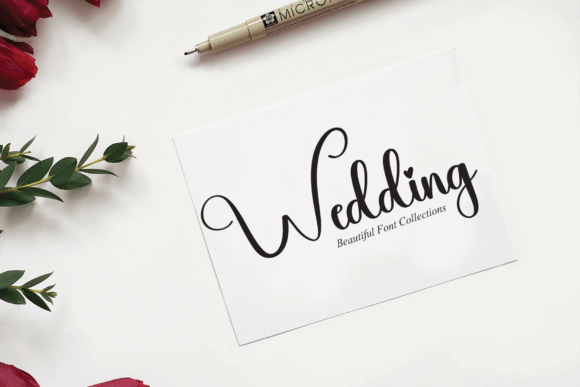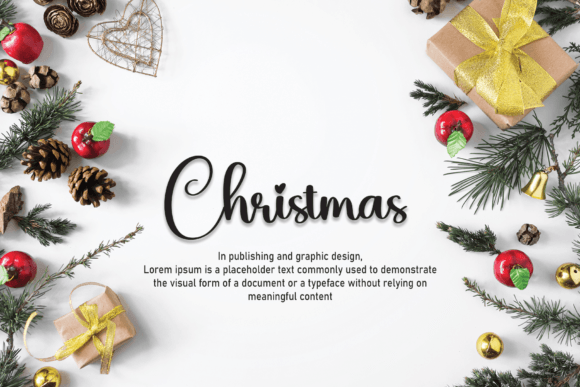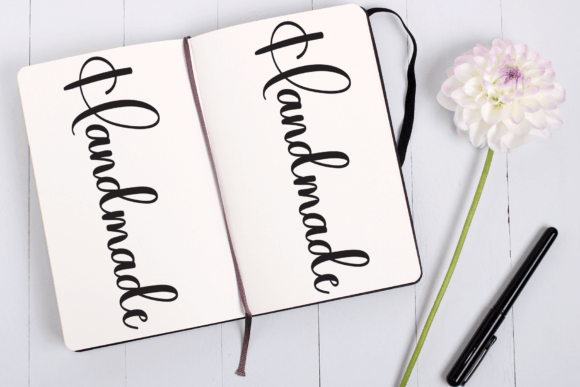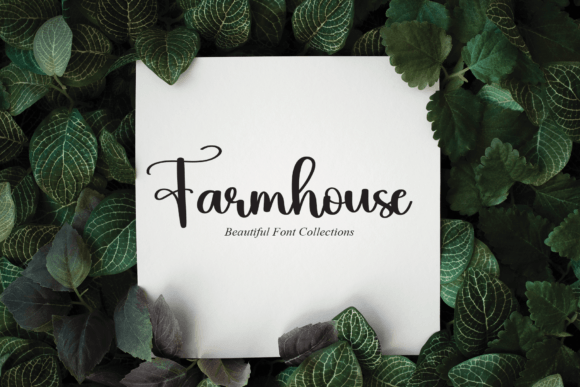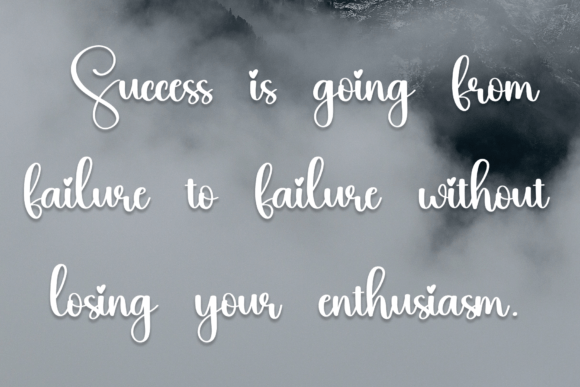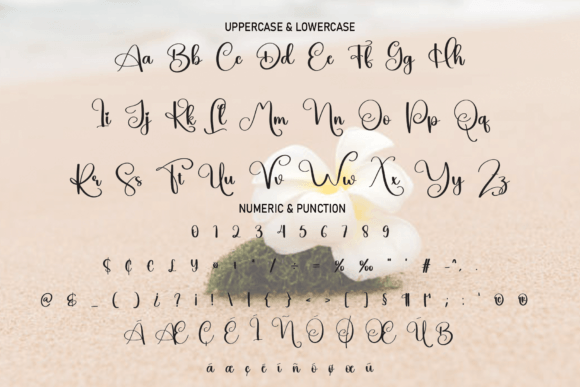
The Perfect Brush Stroke: Discovering the Allure of Hawaii Font
Have you ever been captivated by the free-flowing lines of a handwritten font, and felt an instant urge to recreate that same charm in your design? For many designers, the allure of a beautiful handwritten font is hard to resist, and it’s exactly this kind of creative spark that makes the Hawaii Font so irresistible.
This elegant and stylish font is more than just a pretty face – it’s a versatile tool designed to elevate any project from social media posts to wedding invitations, and from product packaging to photography watermarks. With its unique, handwritten style, the Hawaii Font is a valuable addition to any designer’s toolkit, offering a touch of personality and whimsy to even the most mundane designs.
Hawaii Font Key Features
- Font Family: A custom-designed font, not a standard font family.
- Font Size: Designed for use in various font sizes, from 8pt to 24pt, with optimal readability.
- Resolution: Optimized for use at resolutions up to 300 DPI (dots per inch).
- Unique Characteristics: Features a unique blend of Hawaiian and tropical themes, with intricate designs and patterns.
Hawaii Font Review
Overall, I found the Hawaii Font to be a visually appealing and unique choice for designers looking to add a touch of tropical flair to their projects. ✨ Here are some of its strengths:
- Distinctive character set that captures the essence of Hawaiian culture
- Great for projects that require a sense of relaxation and leisure
- Versatile and can be used in a variety of design contexts, from logos to menus
However, I did encounter some limitations when working with the Hawaii Font. ⚠️ Here are some potential drawbacks to consider:
- May not be suitable for projects that require a more formal or professional tone
- Can be difficult to read in smaller font sizes or when used extensively in body text
- Limited language support, which may limit its use in international projects
Overall, I would recommend the Hawaii Font to designers who are looking to add a unique and tropical touch to their projects. While it may not be suitable for every design context, it can be a great choice for projects that require a sense of relaxation and leisure.
Hawaii Font Practical Application Guide
The Hawaii Font is ideal for creating tropical and beach-themed designs, such as:
– Surfing or beach-related posters
– Summer-themed invitations or greeting cards
– Travel or destination branding
Remember to experiment with different font sizes, colors, and alignments to get the most out of the Hawaii Font.
Alternatives to Hawaii Font
Great Vibes is a beautiful, cursive script font that is perfect for creating a tropical and relaxing atmosphere. It is ideal for use in headings, titles, and other decorative text elements. Great Vibes has a more elegant and refined feel compared to Hawaii Font, making it suitable for high-end branding and design projects.
Playfair Display is a luxurious, elegant serif font that is perfect for adding a touch of sophistication to your designs. It is ideal for use in headings, titles, and other prominent text elements. Playfair Display has a more formal and refined feel compared to Hawaii Font, making it suitable for high-end branding, luxury goods, and fine art.
Carolyna Pro is a modern, elegant script font that is perfect for creating a luxurious and sophisticated atmosphere. It is ideal for use in headings, titles, and other decorative text elements. Carolyna Pro has a more refined and sophisticated feel compared to Hawaii Font, making it suitable for high-end branding, fashion, and luxury goods.
Lato is a modern, sans-serif font that is perfect for creating a clean and minimalistic atmosphere. It is ideal for use in body text, paragraphs, and other text elements where readability is key. Lato has a more straightforward and functional feel compared to Hawaii Font, making it suitable for corporate branding, websites, and other digital platforms.